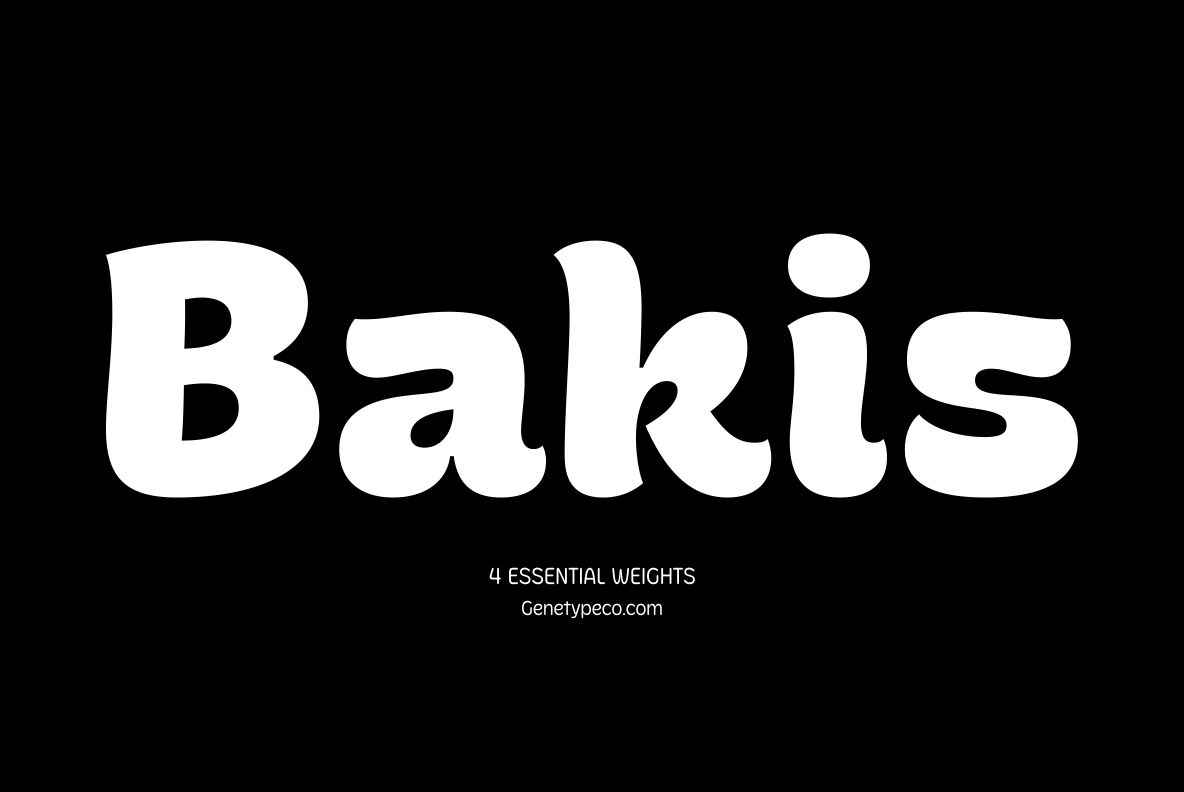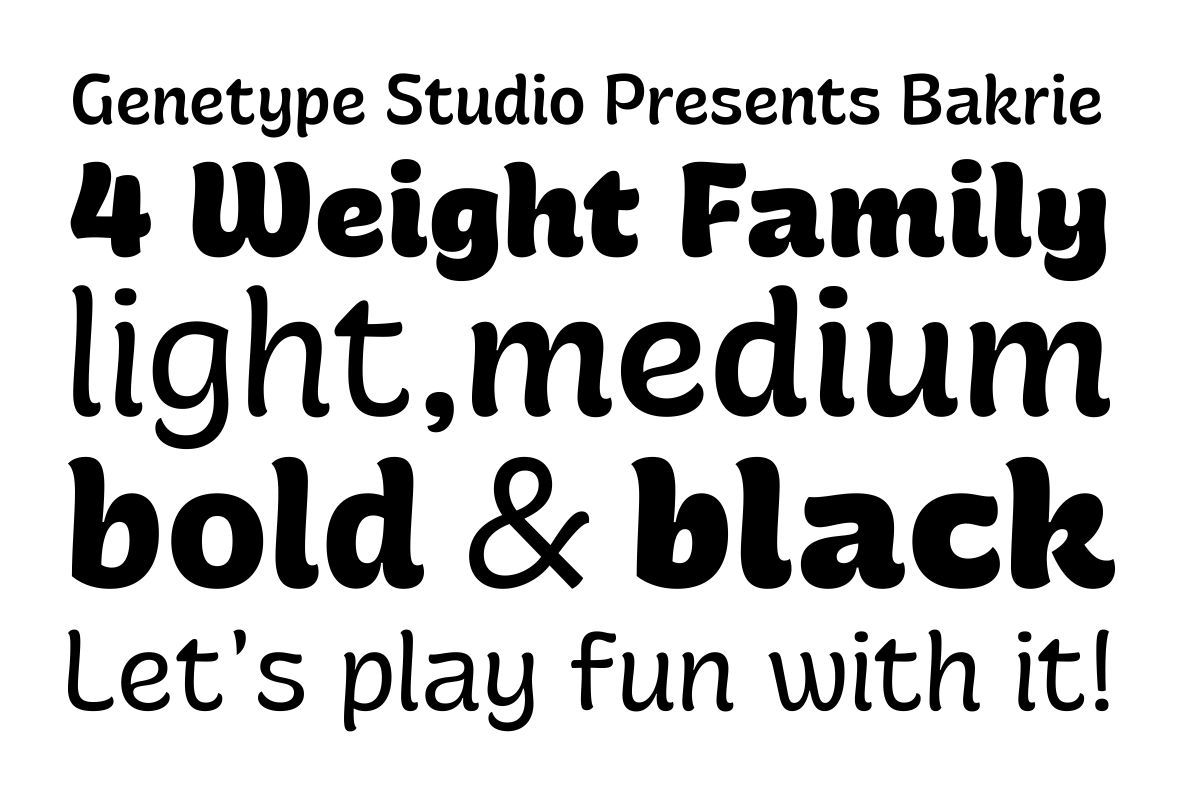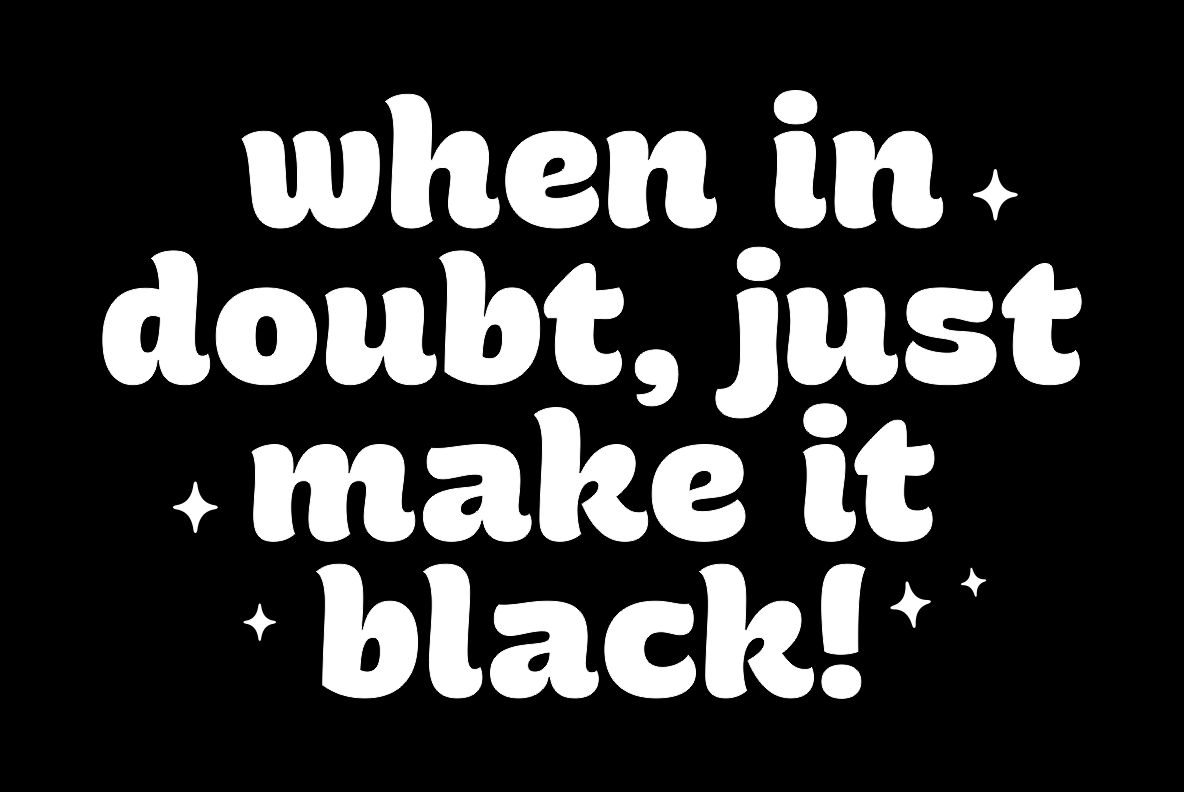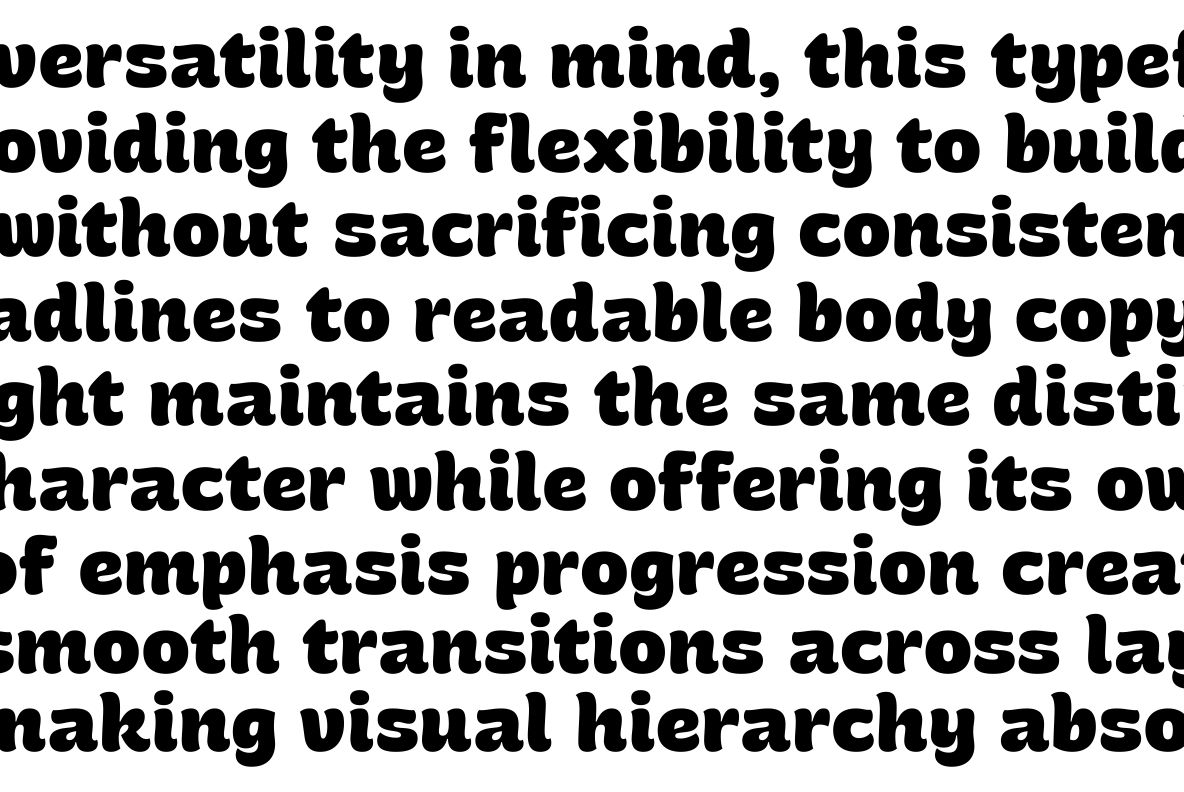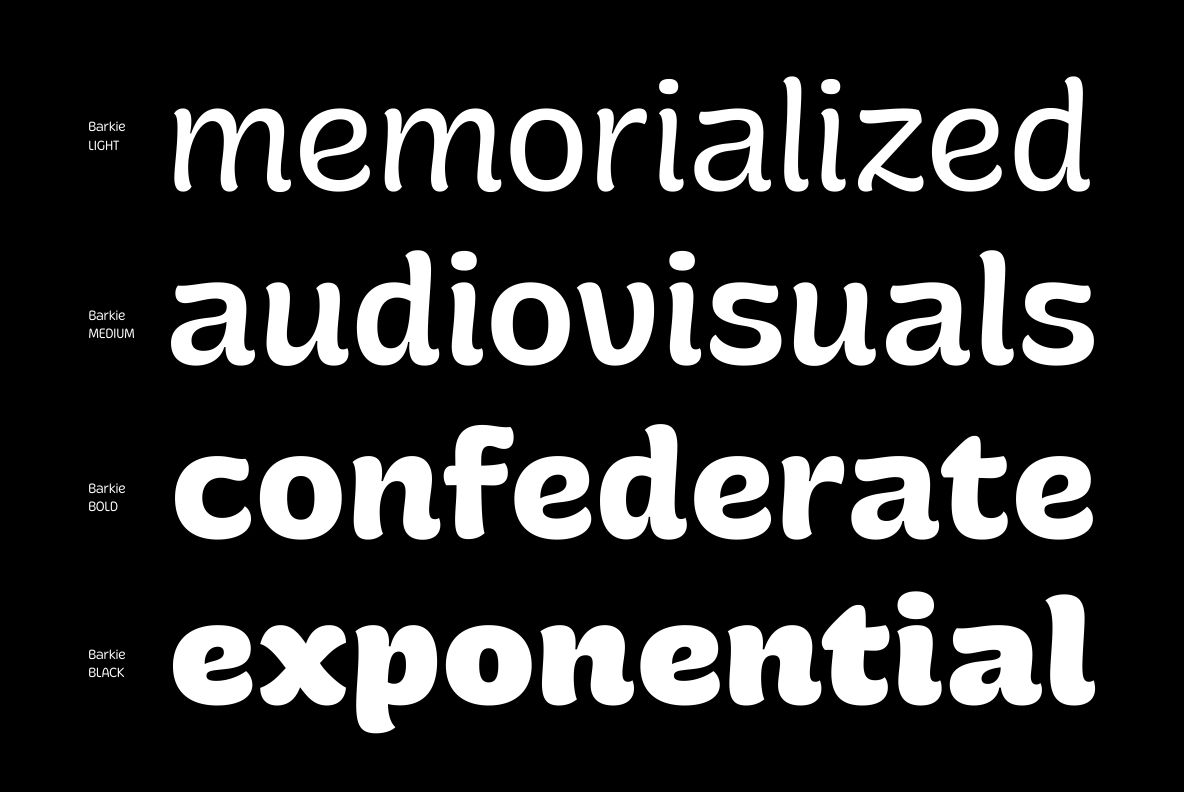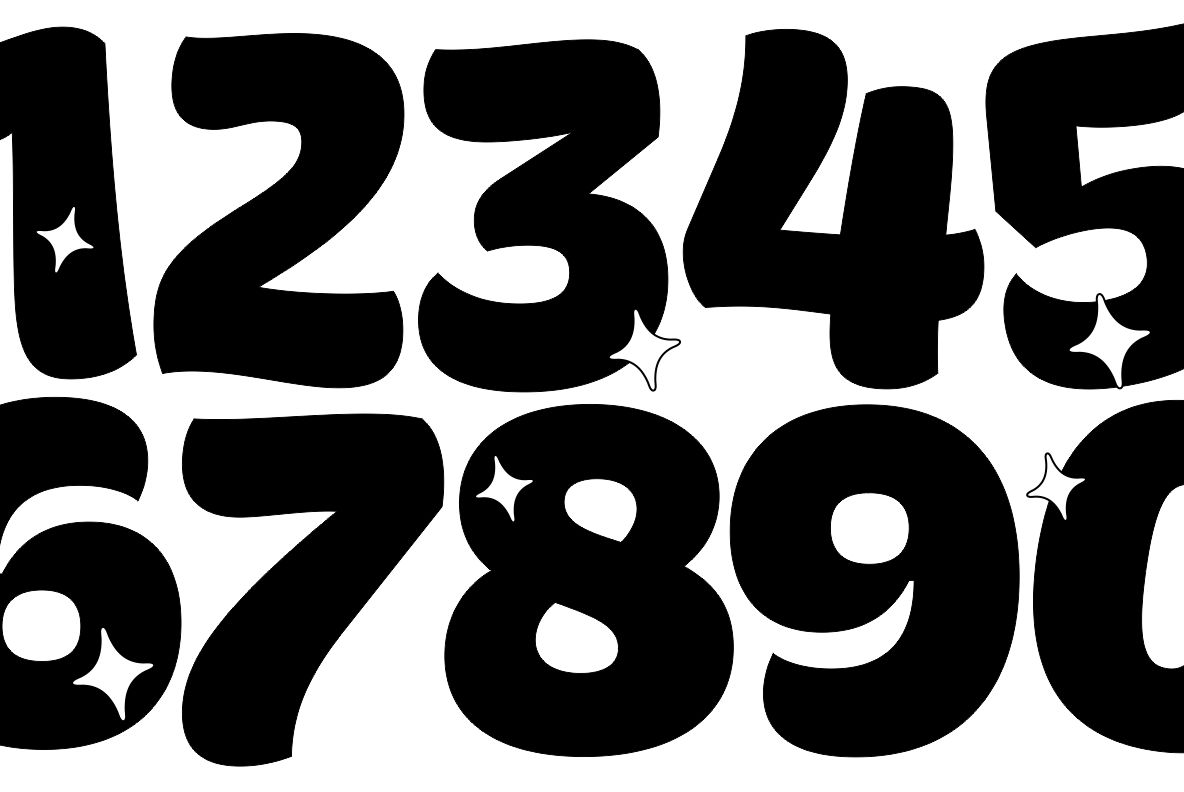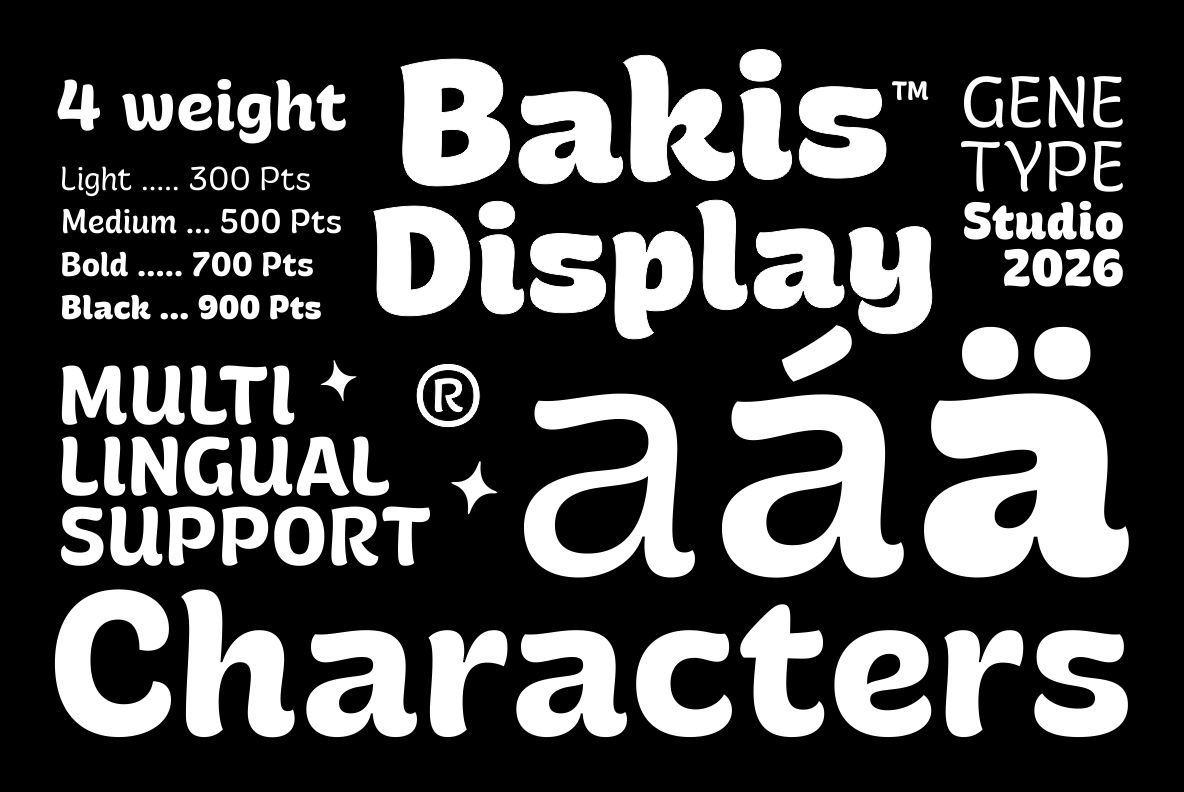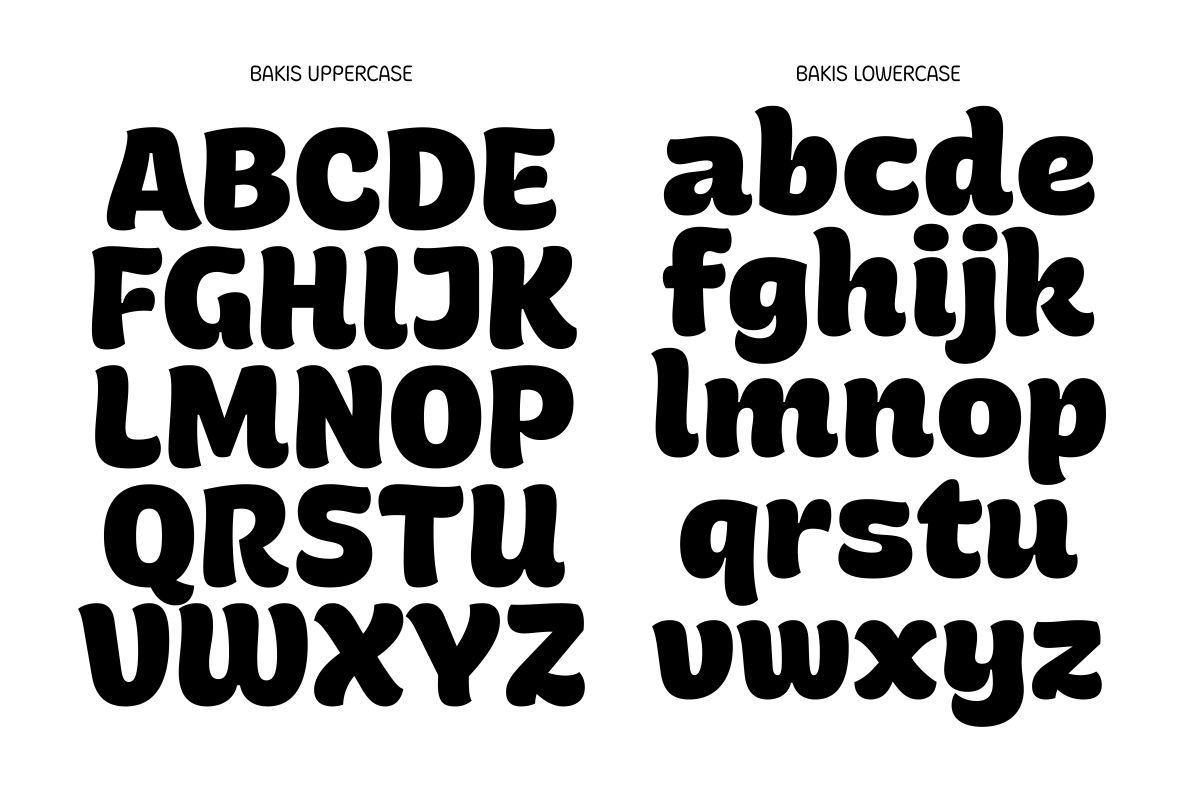
Bakis Black
Bakis Bold
Bakis Medium
Bakis Light
Bakis Display is a playful display sans serif that brings warmth, charm, and personality to every design.
With its soft rounded shapes and friendly letterforms, Bakis is perfect for branding, logos, packaging, food & beverage, children’s products, social media, posters, headlines, and any project that needs a fun yet confident voice.
The family includes four essential weights Light, Medium, Bold, and Black, giving you the flexibility to create everything from subtle typography to bold visual statements. Bakis also includes uppercase and lowercase letters, numbers, punctuation, extensive multilingual support with accented characters, and comes in OTF, TTF, and WOFF formats for both print and digital use.
Whether you’re designing a bakery logo, café branding, snack packaging, kids’ products, merchandise, or eye-catching social media graphics, Bakis adds a playful and memorable touch that helps your work stand out.
Bakis Display Font
Bakis Display is a playful display sans serif featuring 4 versatile weights, multilingual support, and friendly letterforms—perfect for branding, packaging, logos, food, kids, and eye-catching headlines.